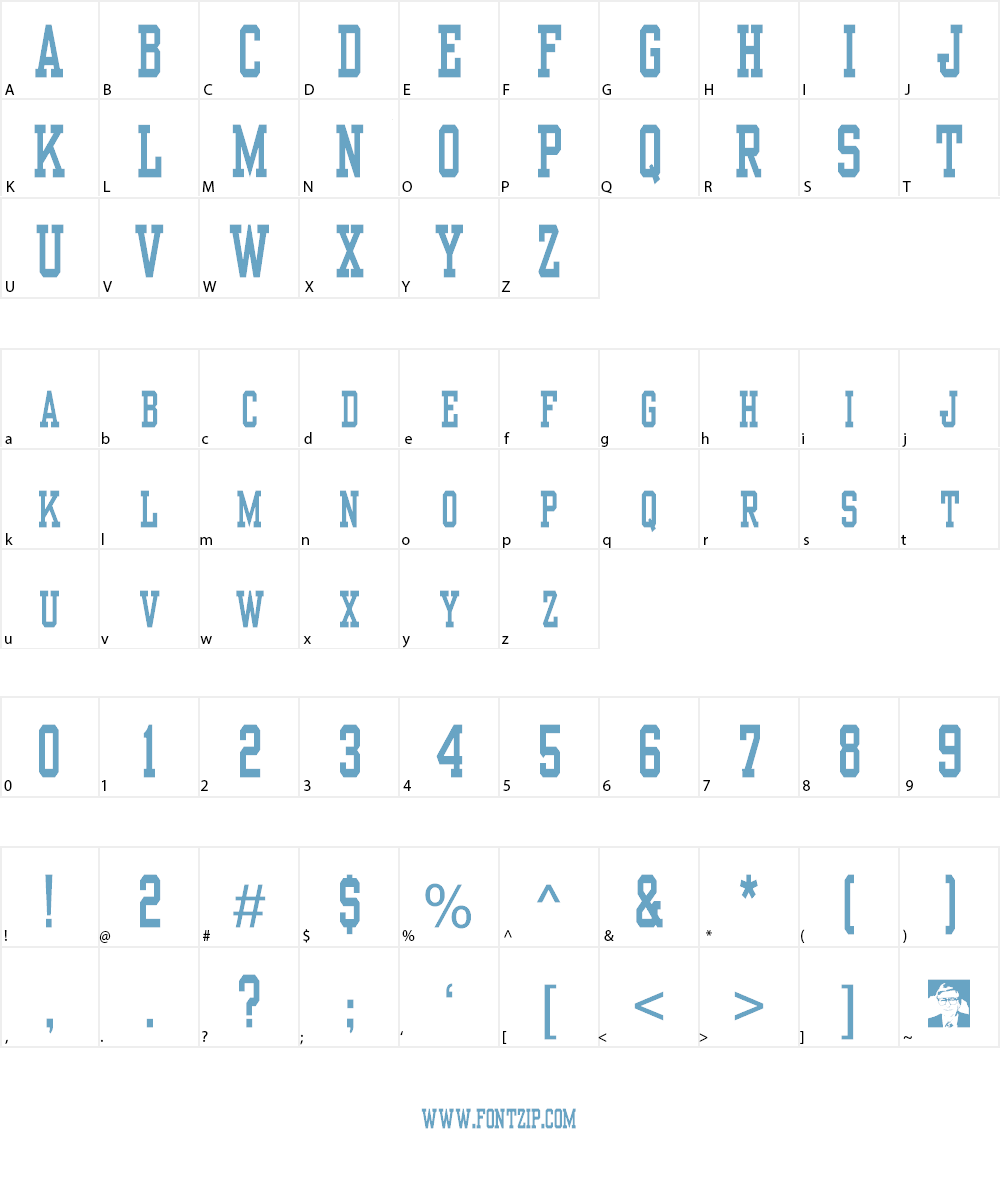
slab-serif font traditionally used on college athletic jerseys or in school yearbooks. It's fashioned after some of the antique wood fonts -- rather blocky, but with character.